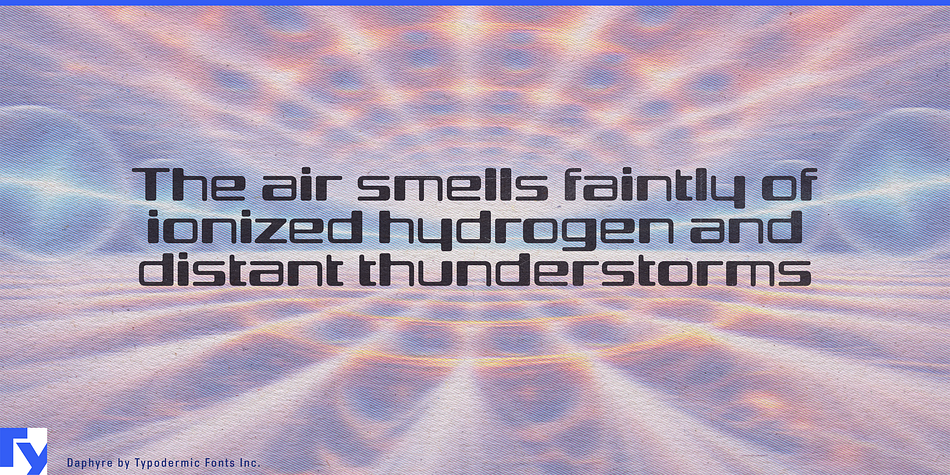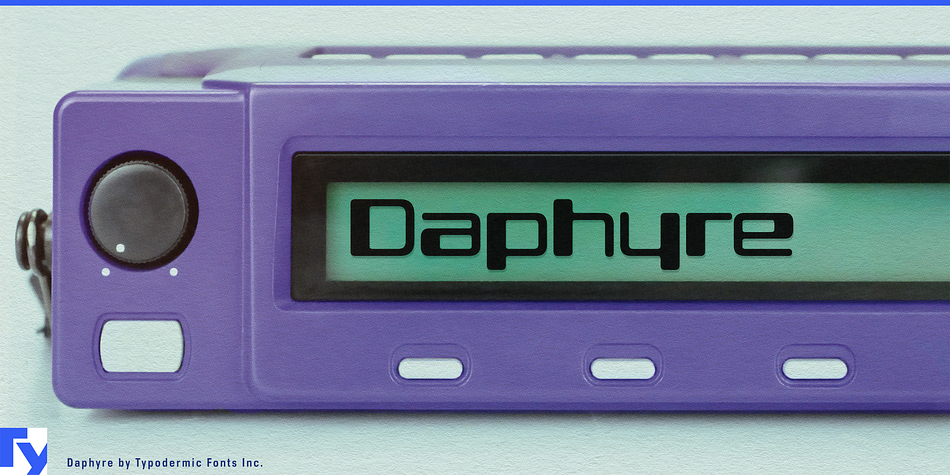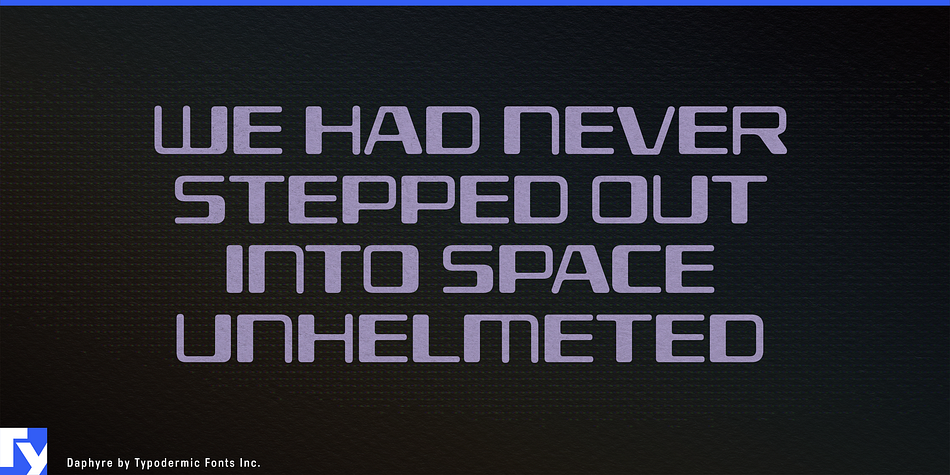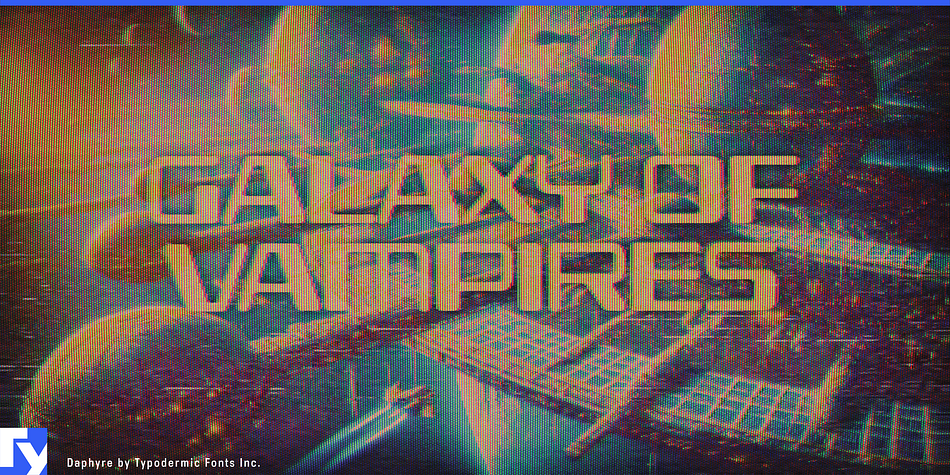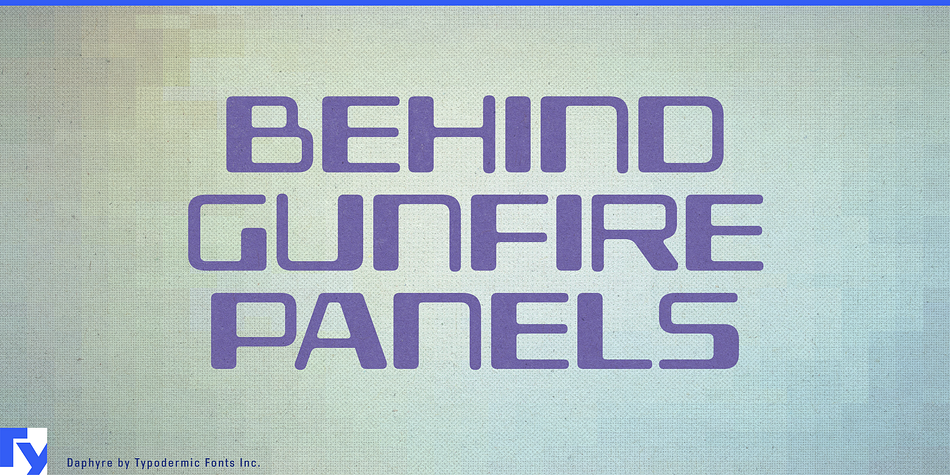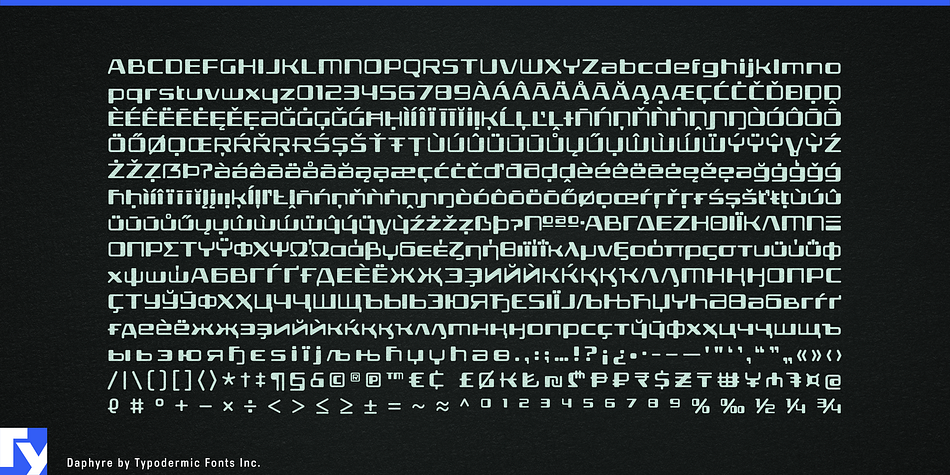
Designed by Ray Larabie, Daphyre is a display sans font published by Typodermic Fonts Inc.
Daphyre is an ultramodern headline typeface. The soft edges and techno strokes steer toward magnetic ink (MICR) inspired display types of the 1960’s. The wide, stark letterforms with their massive x-height bring Y2K aesthetics to mind. Instead of leaning into a zany take on the MICR style, Daphyre’s thick/thin choices are more austere. The stroke logic emphasizes verticals and where possible, places focus on the most character-defining aspect of each letterform. The result is a sumptuous typeface which casts an aura of high-end electronics, opulent weapons, and luxury vehicles. Almost all current Latin-based languages are supported, including Vietnamese, Cyrillic languages, and Greek.